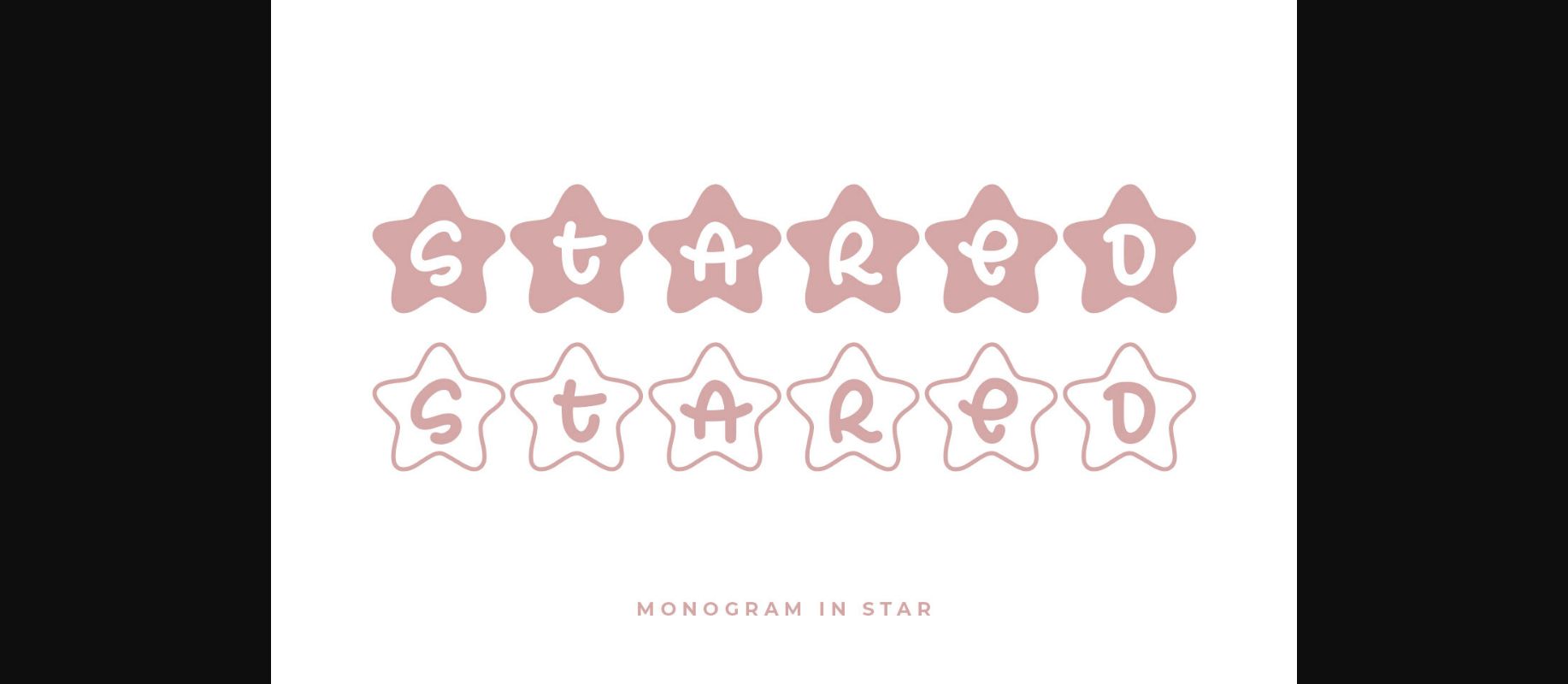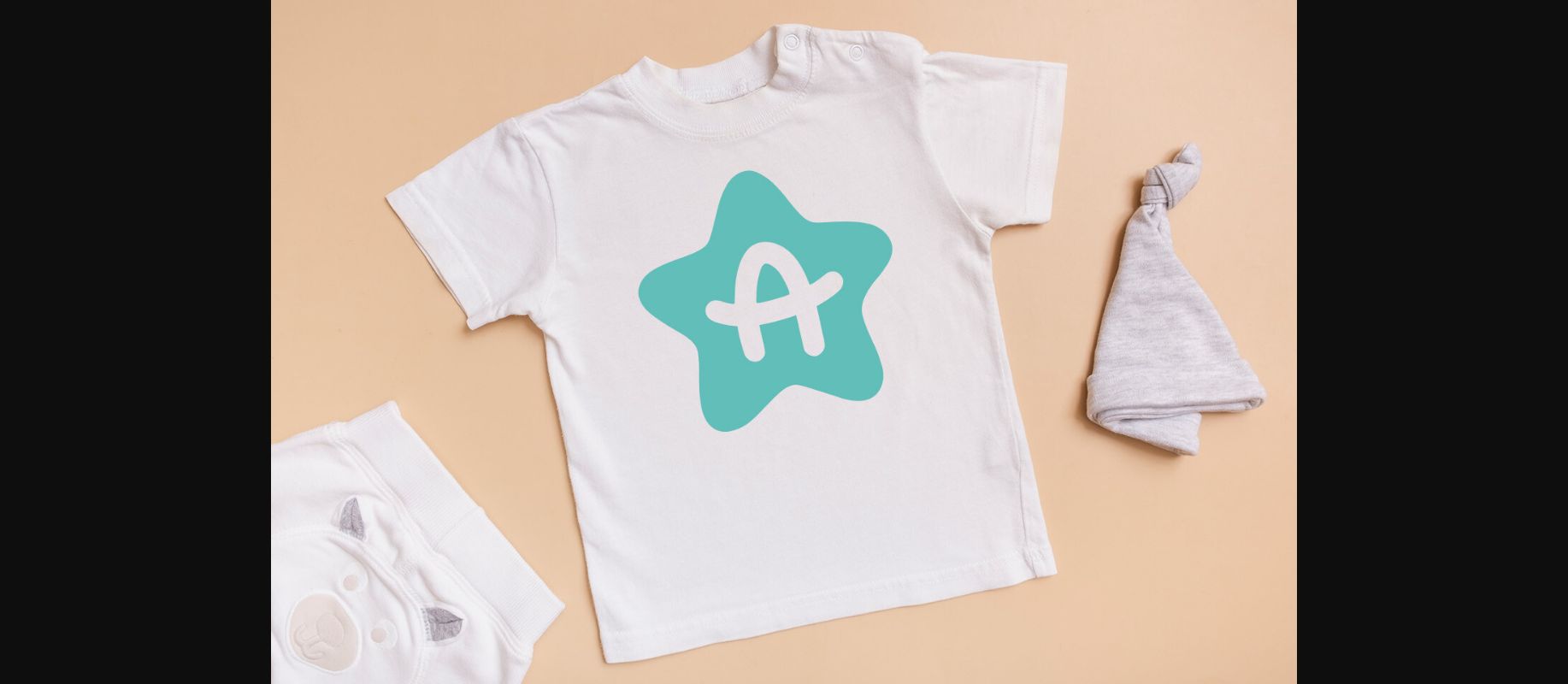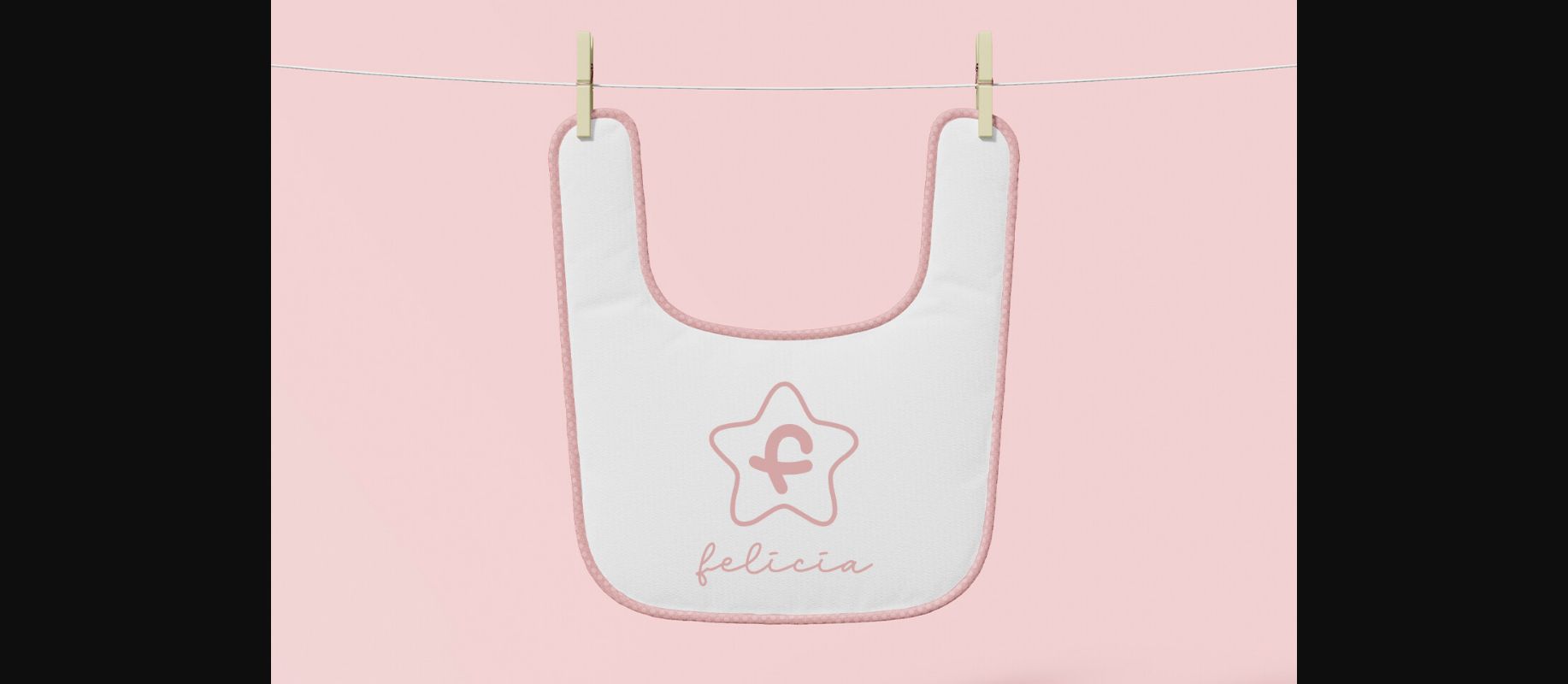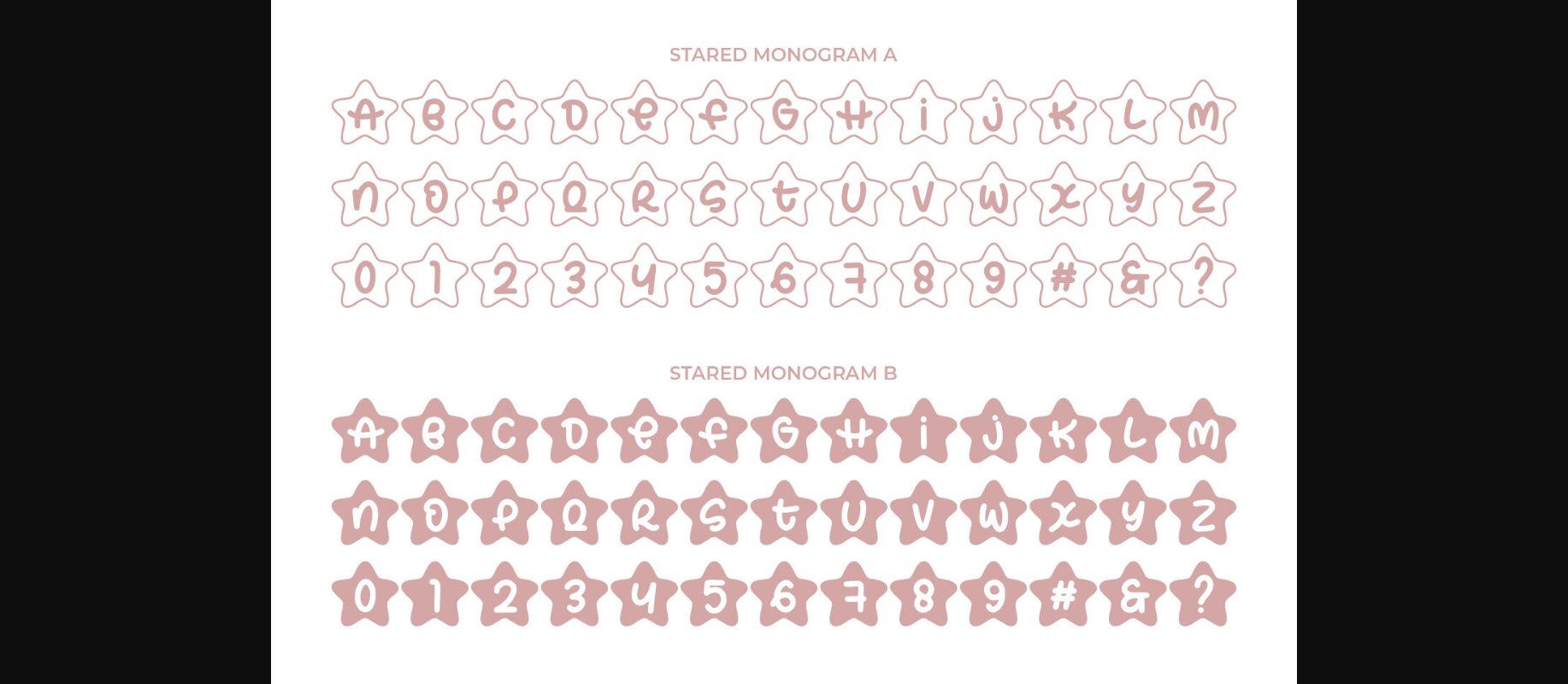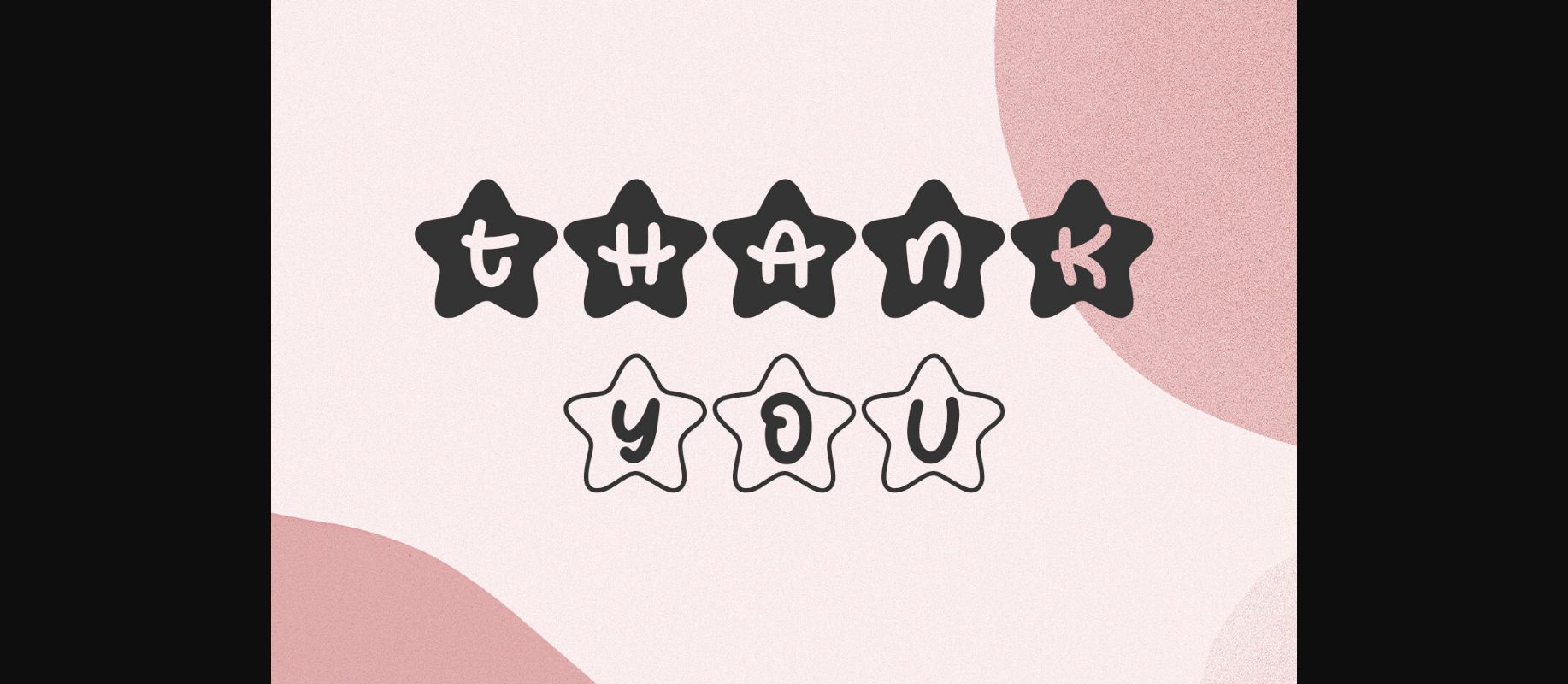
About Stared Font
STARED MONOGRAM is a cute and playful monogram font.
It is great for branding, logos, t-shirt designs, tote bag designs, cards, banners, social media, and more.